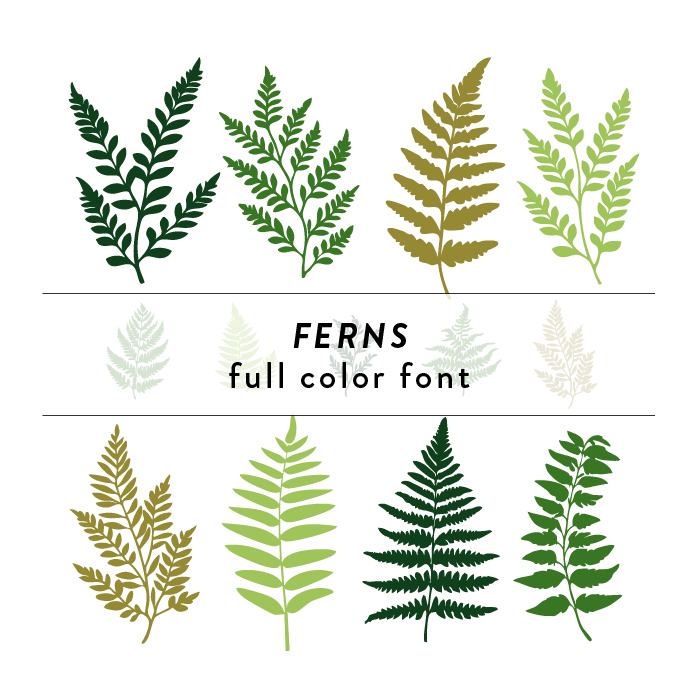
Ferns Full Color Font is a whimsical and intricate font design inspired by the beauty of nature. Featuring delicate ferns, branches, and leaves, this font captures the essence of summer with its vibrant colors and detailed elements. Perfect for craft projects, invitations, and branding materials, this unique font adds a touch of natural charm to any design. This font is a OTF craft font that will appear in color only when used with the silhouette software.